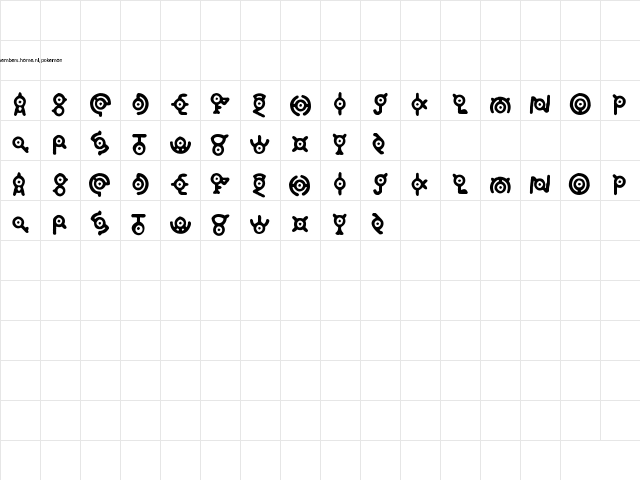
Annon Regular Free Font
Annon Regular
Foundry: Pok￿n Paranoia
Designer: Edwin v.d. Beemt
Design Context for Annon
Annon is a composed and adaptable typeface that performs quietly and consistently across a wide range of design contexts.